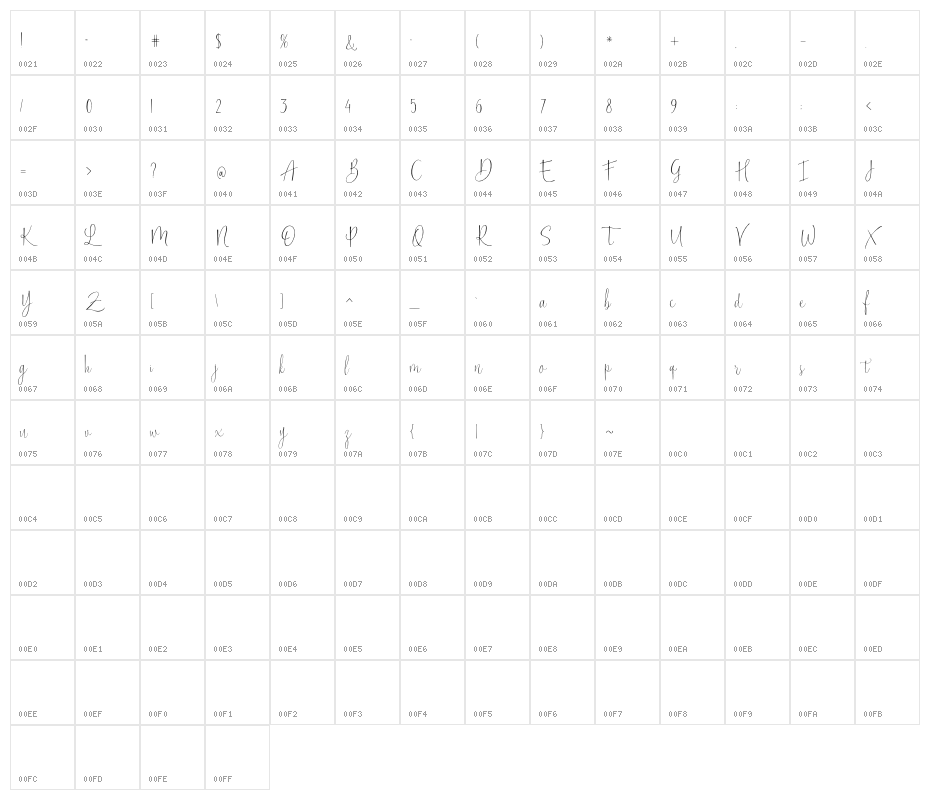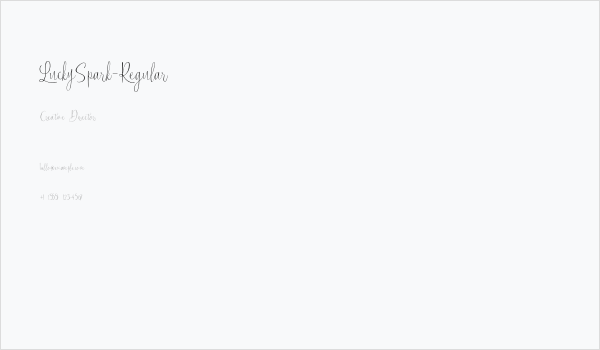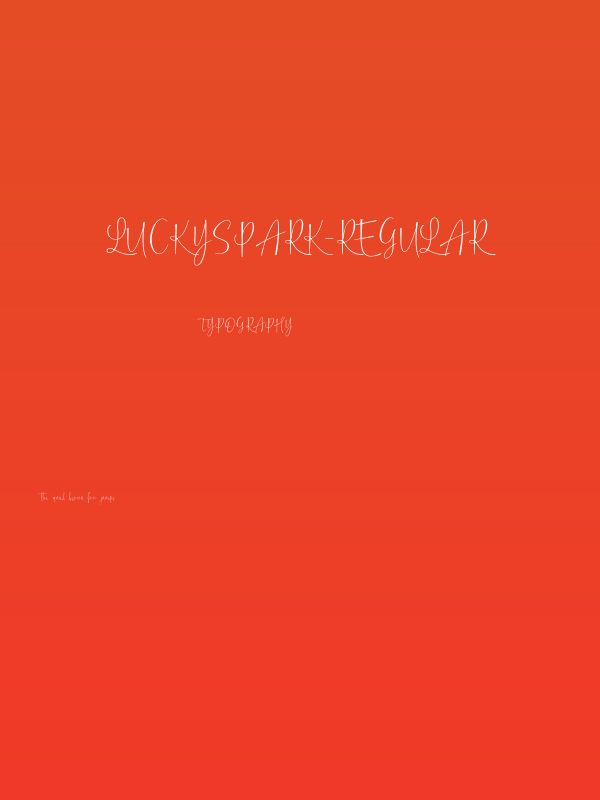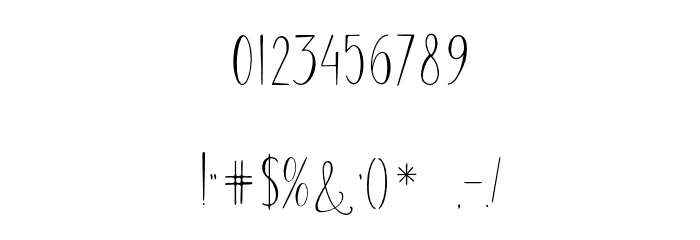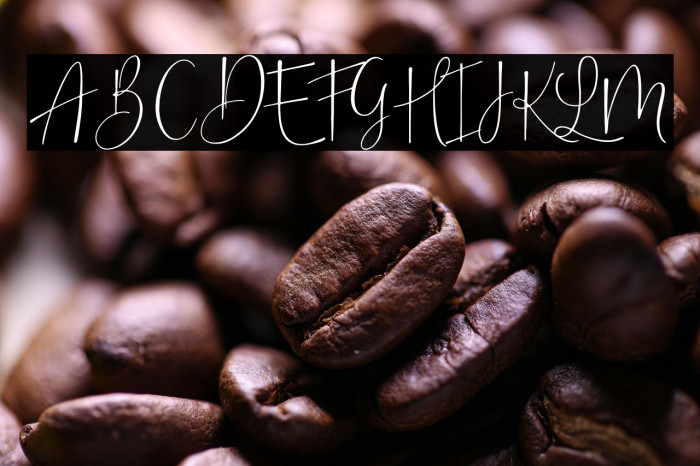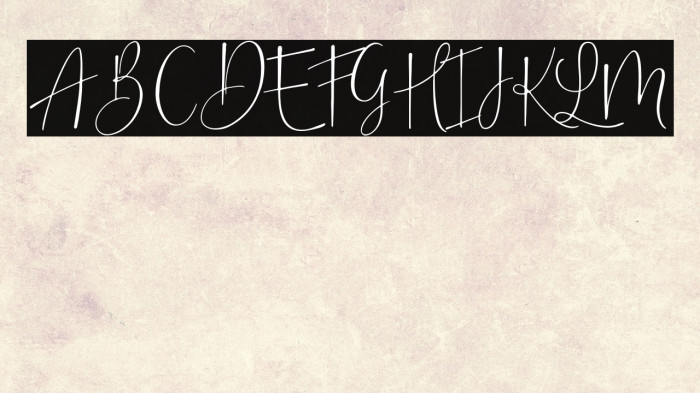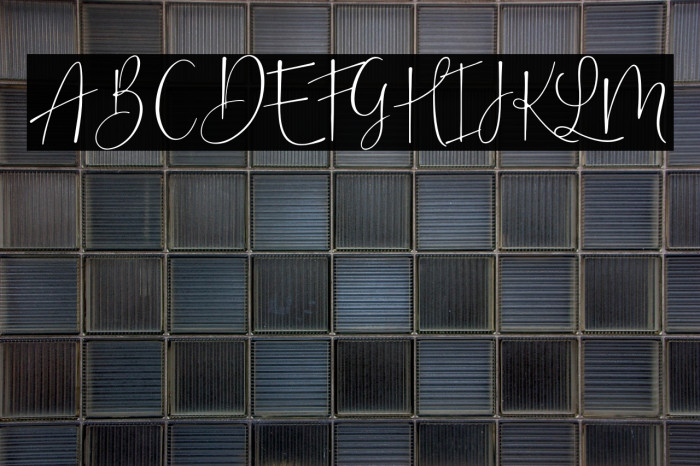
LuckySpark-Regular Font
LuckySpark-Regular Description
This font features a delicate and flowing script style, characterized by its elegant and graceful curves. The uppercase letters are tall and slender, with a slight slant that adds a sense of movement and fluidity. The lowercase letters are equally graceful, with loops and swirls that enhance the font's decorative appeal. The numerals are consistent with the overall style, maintaining the same thin strokes and elegant curves. Special characters are designed with the same attention to detail, ensuring a cohesive look across all glyphs. This font is perfect for projects that require a touch of sophistication and elegance.
| Proposed Projects | Ideal for wedding invitations, elegant branding, personal stationery, and decorative headings. |